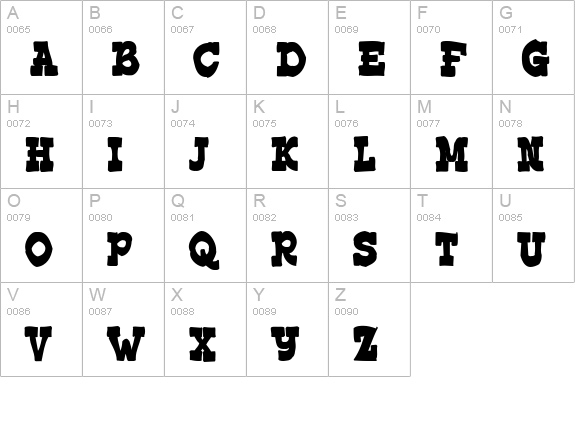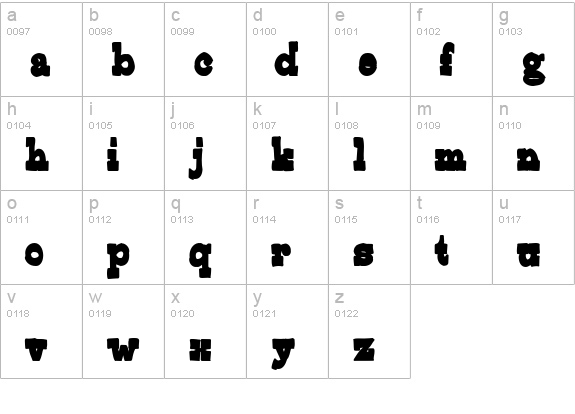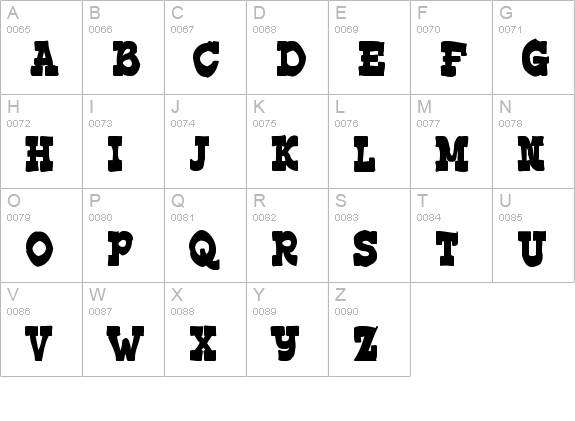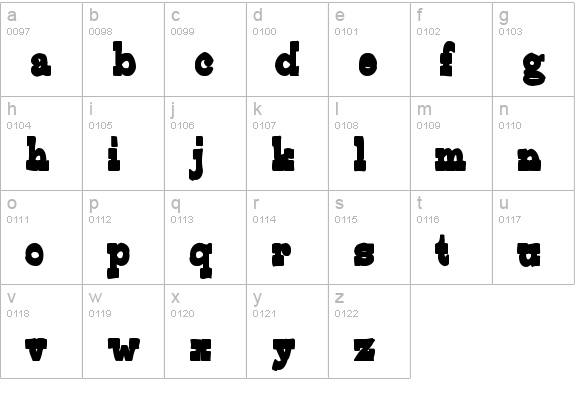
Edmunds Ink Font Details
Introducing Edmunds Ink font, a charming and versatile typeface that exudes a sense of creativity and hand-crafted elegance. With its unique ink-inspired design, Edmunds Ink brings a touch of vintage flair to any project, making it perfect for invitations, branding, packaging, and more. This font features a wide range of characters, including uppercase and lowercase letters, numbers, punctuation marks, and special symbols, allowing you to create beautifully cohesive designs with ease. The slightly imperfect edges and uneven ink textures give Edmunds Ink a distinct character and personality that will make your creations stand out. Best of all, Edmunds Ink is available for free download at FontsMarket.com, making it accessible to designers, creators, and enthusiasts alike. Whether you're working on a personal project or a client's design, Edmunds Ink is sure to add a touch of whimsy and style to your work. Download Edmunds Ink today and let your creativity flow freely with this delightful font.